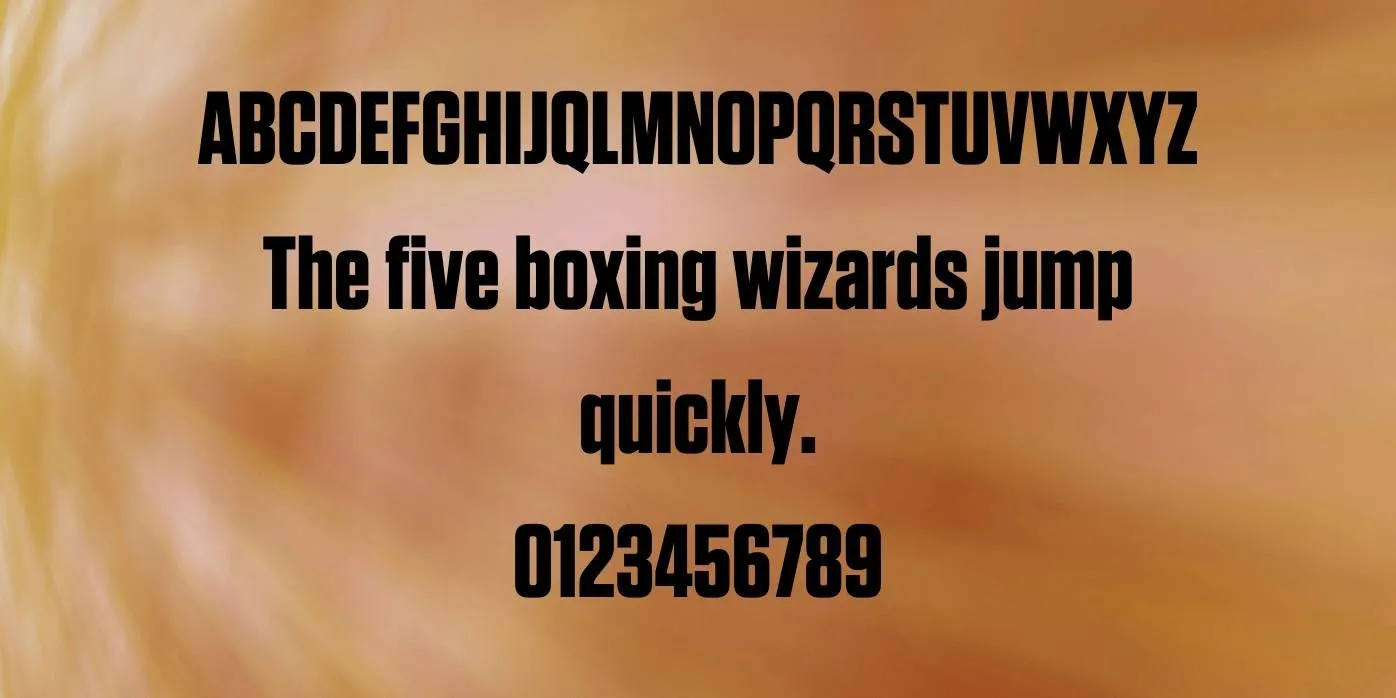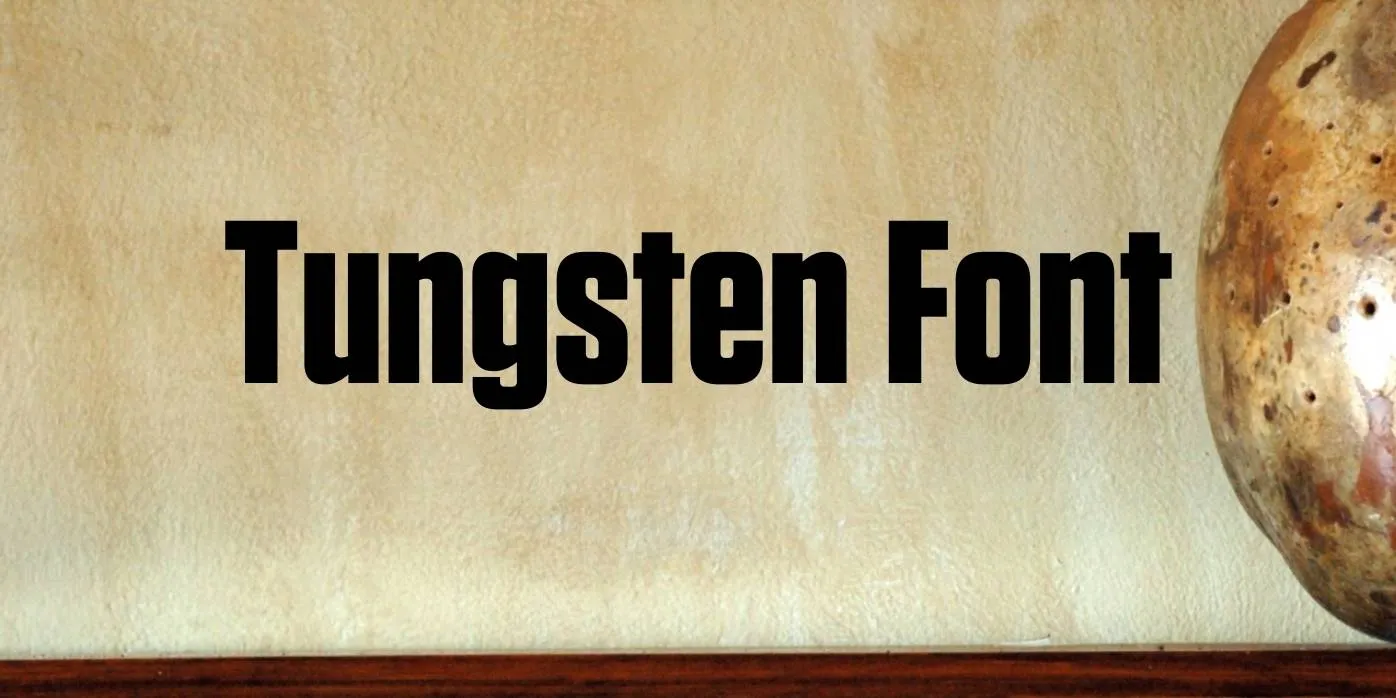
Tungsten Font
In this post, we are introducing a tremendous font family that is known as Tungsten Font. This amazing font belongs to the Sans- Serif typeface. This classy font was designed by the hard work of two famous and excellent designers Hoefler and Frere-Jones. In 2009 this font family was developed.
This stylish font is available in 32 various unique styles. Some common and famous styles of this classic look fonts are Bold, Italic, and many more. This font family is mostly best for different designing projects. Due to its best space letters, this font got great and massive fame for various design works like posters designing in 20 century.
Because of its classic and clean features, this font is perfect for various types of design as compared to other related fonts. This font has the best properties that are why it is used almost in all brands you must pick out this amazing and bright features font. This marvelous font family is best for designing in adobe. This font provides a good look to designs by a pairing of Helvetica Font.